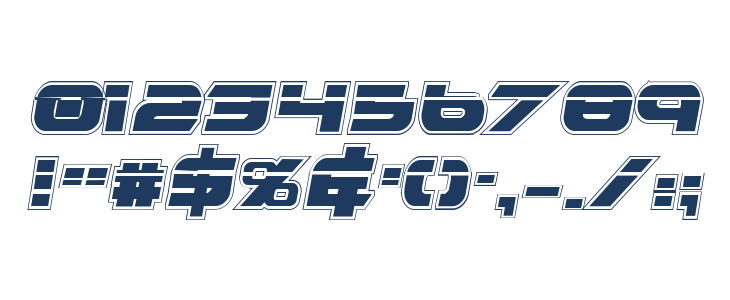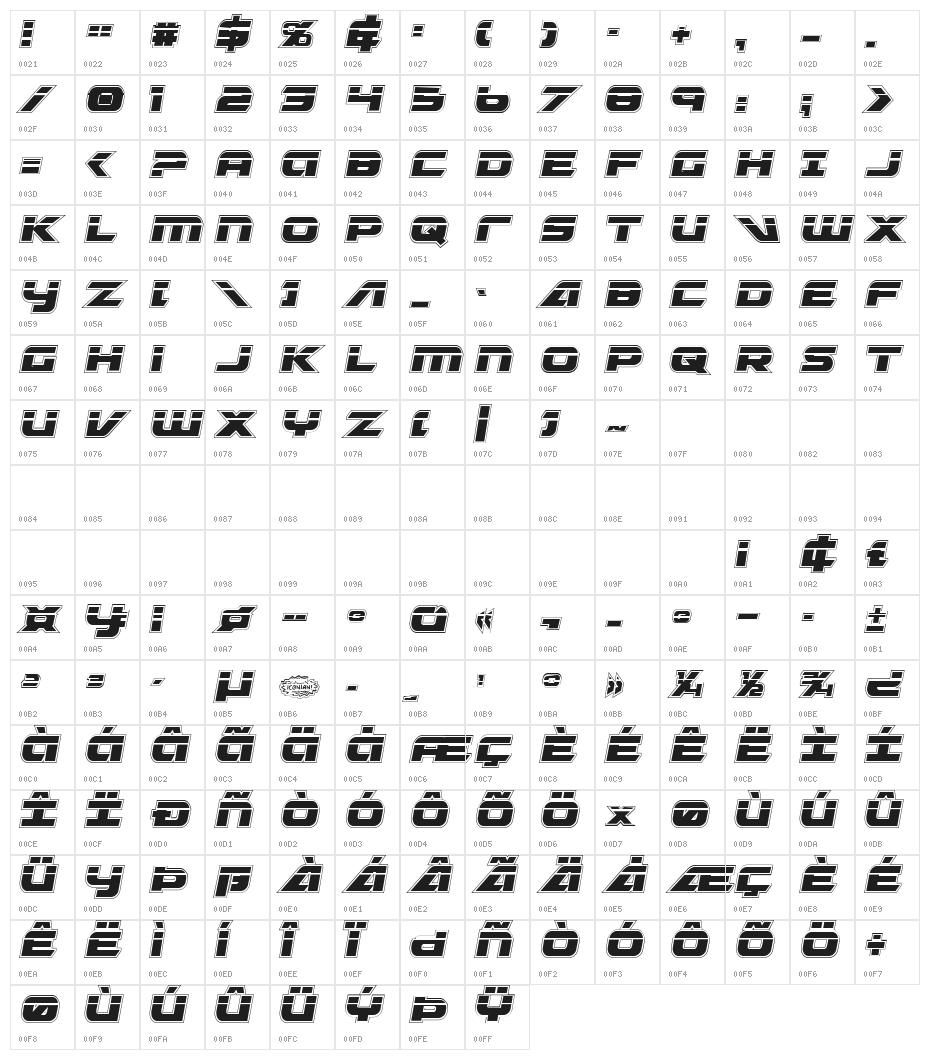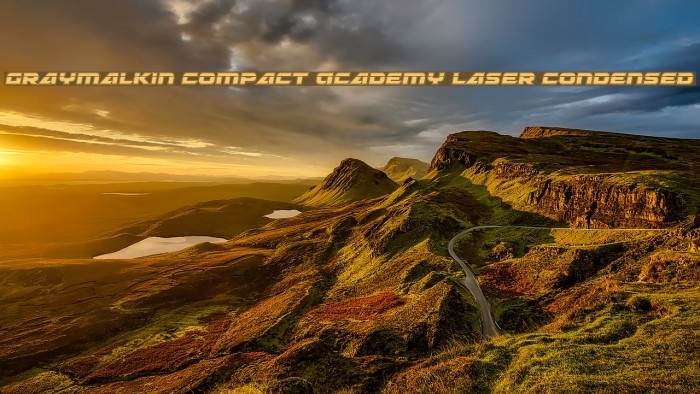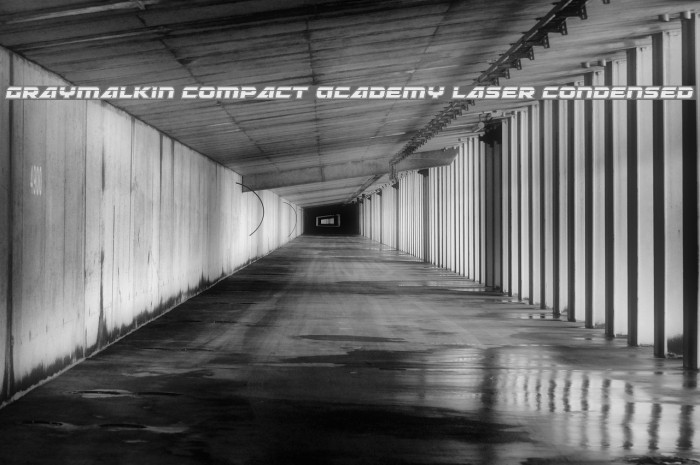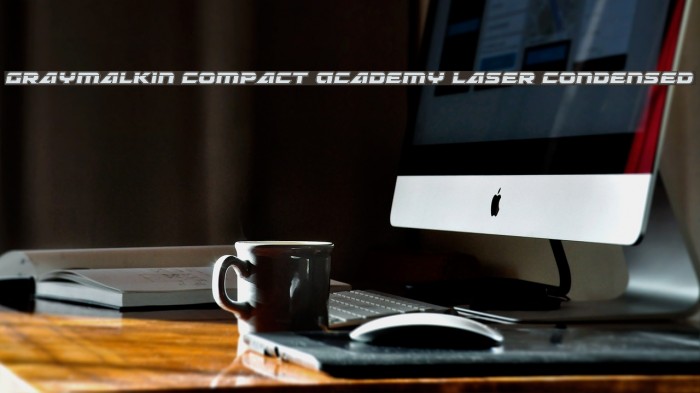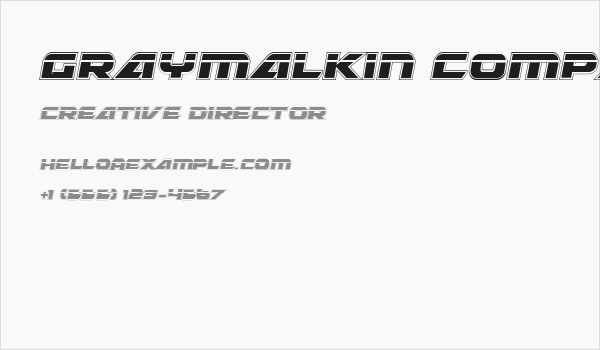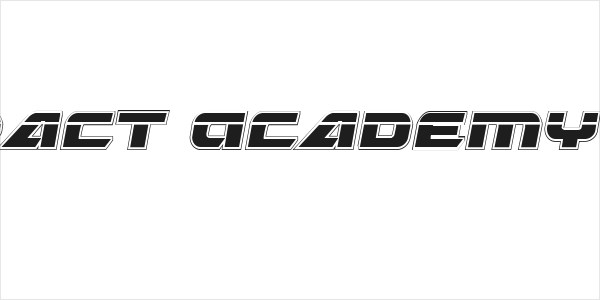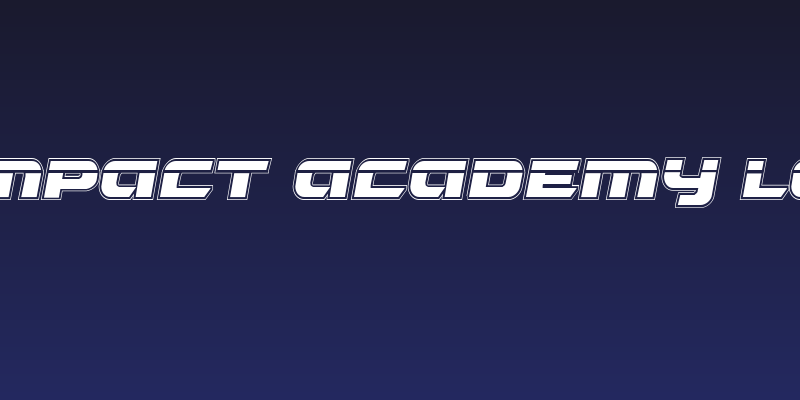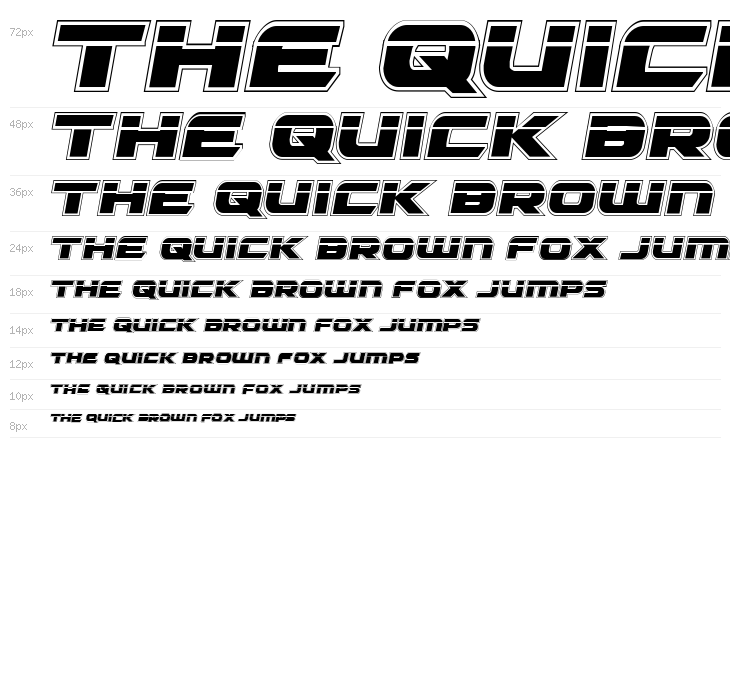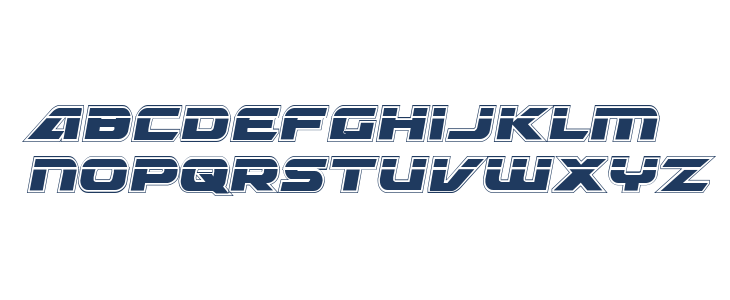
Graymalkin Compact Academy Laser Condensed Font
Graymalkin Compact Academy Laser Condensed Description
This font features a futuristic and geometric design with bold, angular lines and a distinct condensed style. The characters are outlined, creating a layered effect that adds depth and dimension. The uppercase and lowercase letters maintain a consistent width, contributing to a uniform appearance. The numerals and special characters follow the same design principles, ensuring cohesion across all glyphs. This font's unique style makes it stand out, ideal for projects that require a modern and edgy look.
| Proposed Projects | Ideal for sci-fi themed designs, tech company logos, video game titles, and modern posters. |